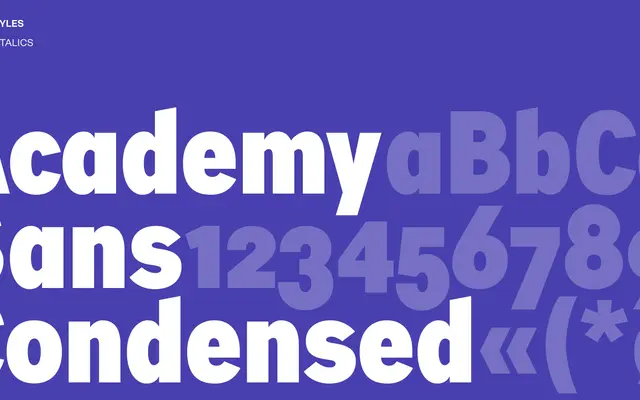
Academy Sans Condensed
A condensed sans-serif from Playtype suited to display and editorial work in tight horizontal measures.
Academy Sans Condensed is a narrow grotesque sans from Copenhagen foundry Playtype. The condensed cut positions it for headlines, posters and other contexts where vertical space is at a premium. The page content provided is insufficient to confirm full weight range, italic support or extended language coverage.
The name and condensed designation suggest a narrow grotesque or gothic sans-serif in the tradition of condensed display typefaces; no further classification detail is provided on the page.